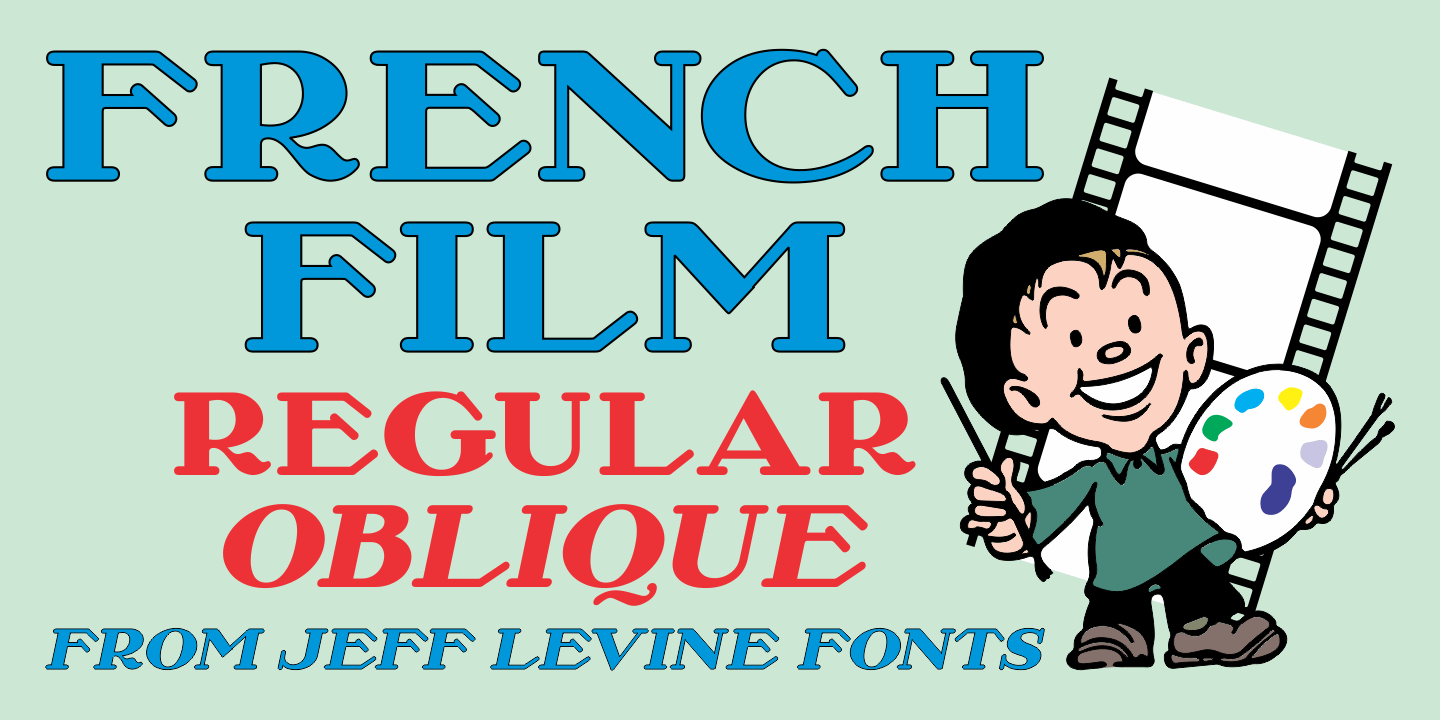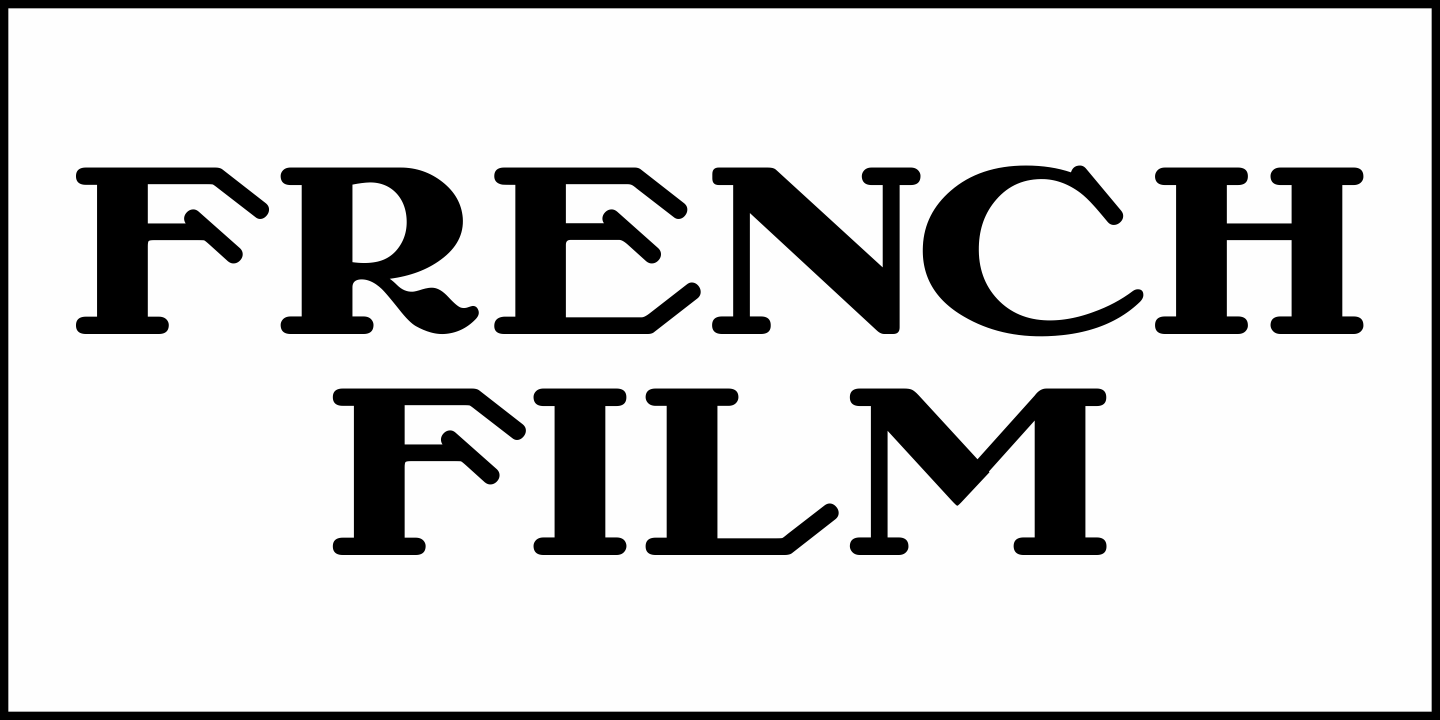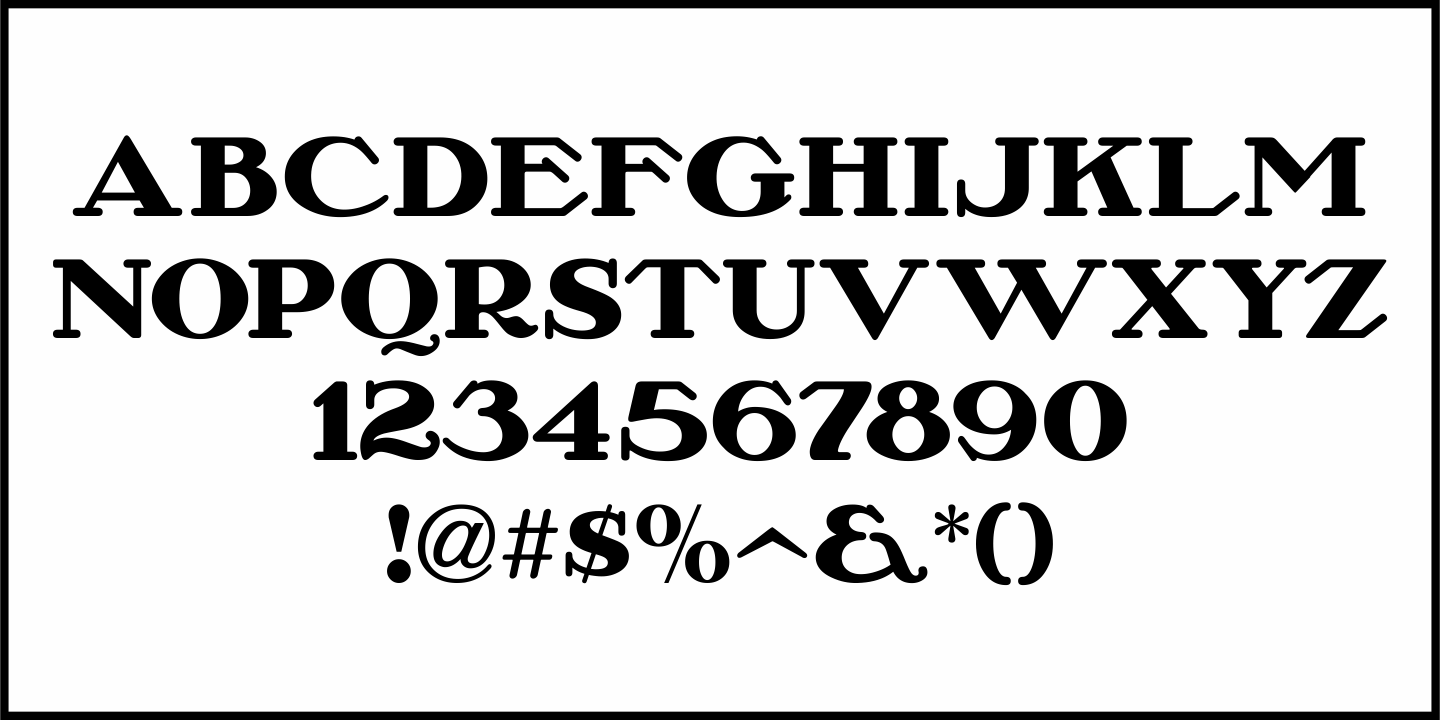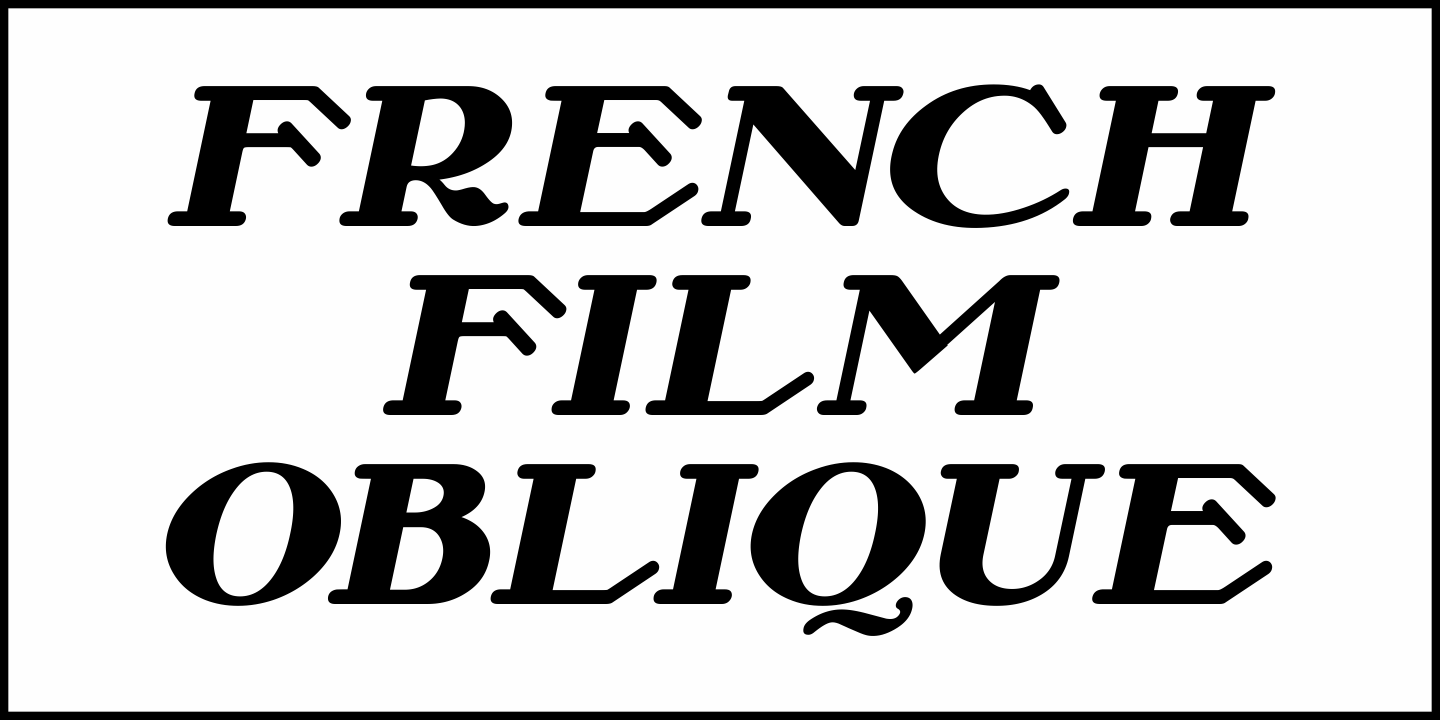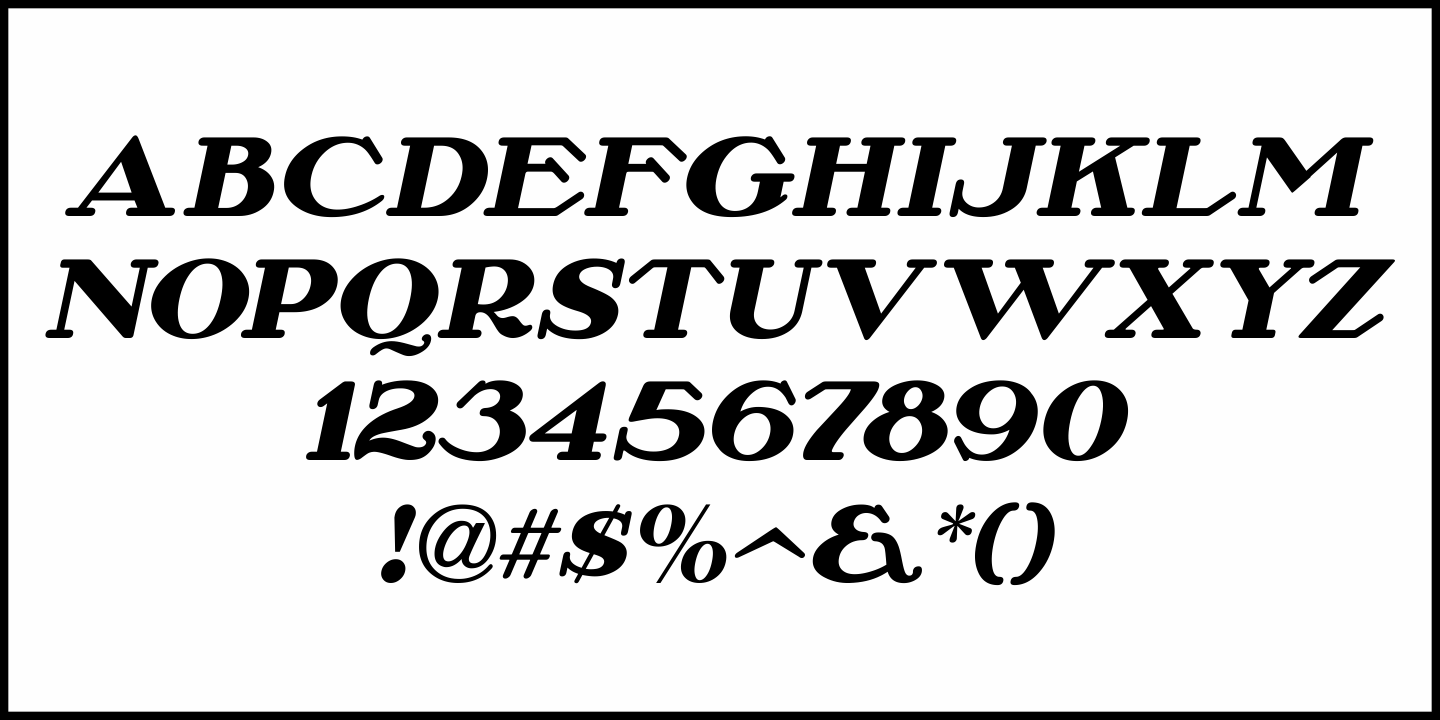
French Film
Hand lettering found in the September, 1936 issue of the French film publication 'La Cinématographie Française” is rendered in a lovely Art Nouveau serif type style.
This is now available digitally as French Film JNL, in both regular and oblique versions.